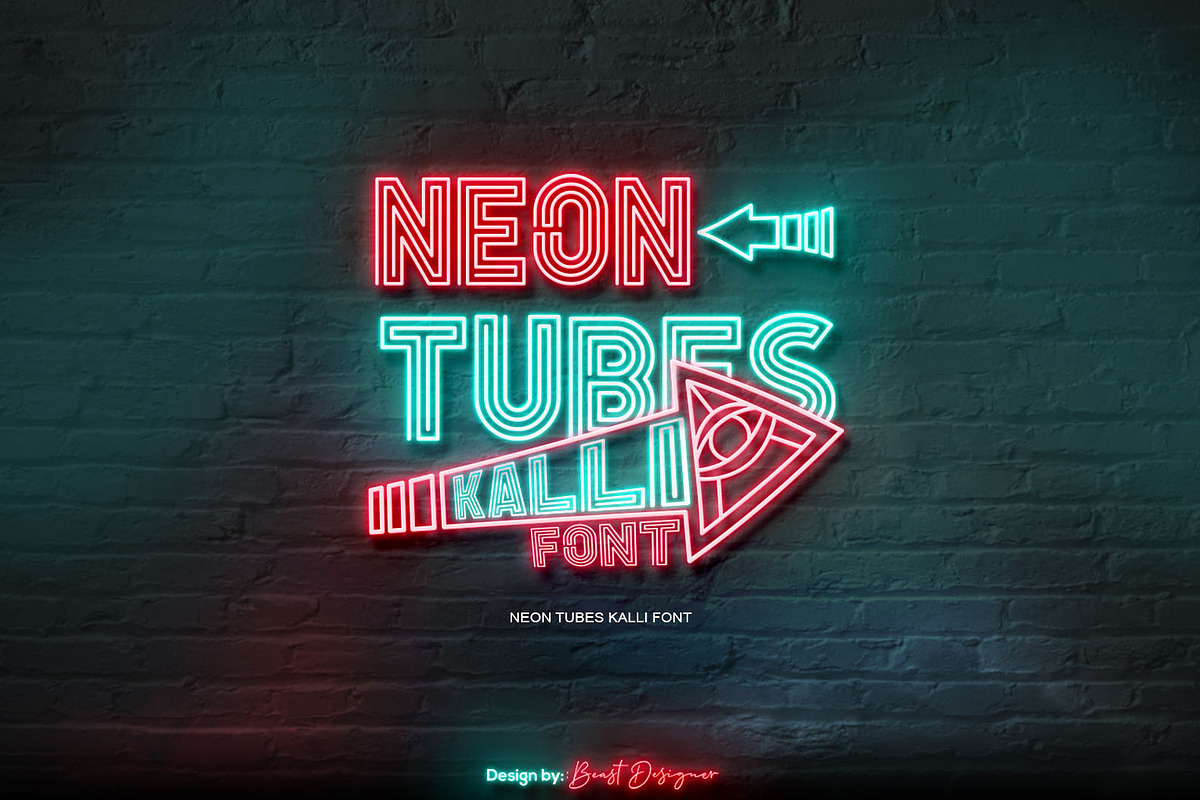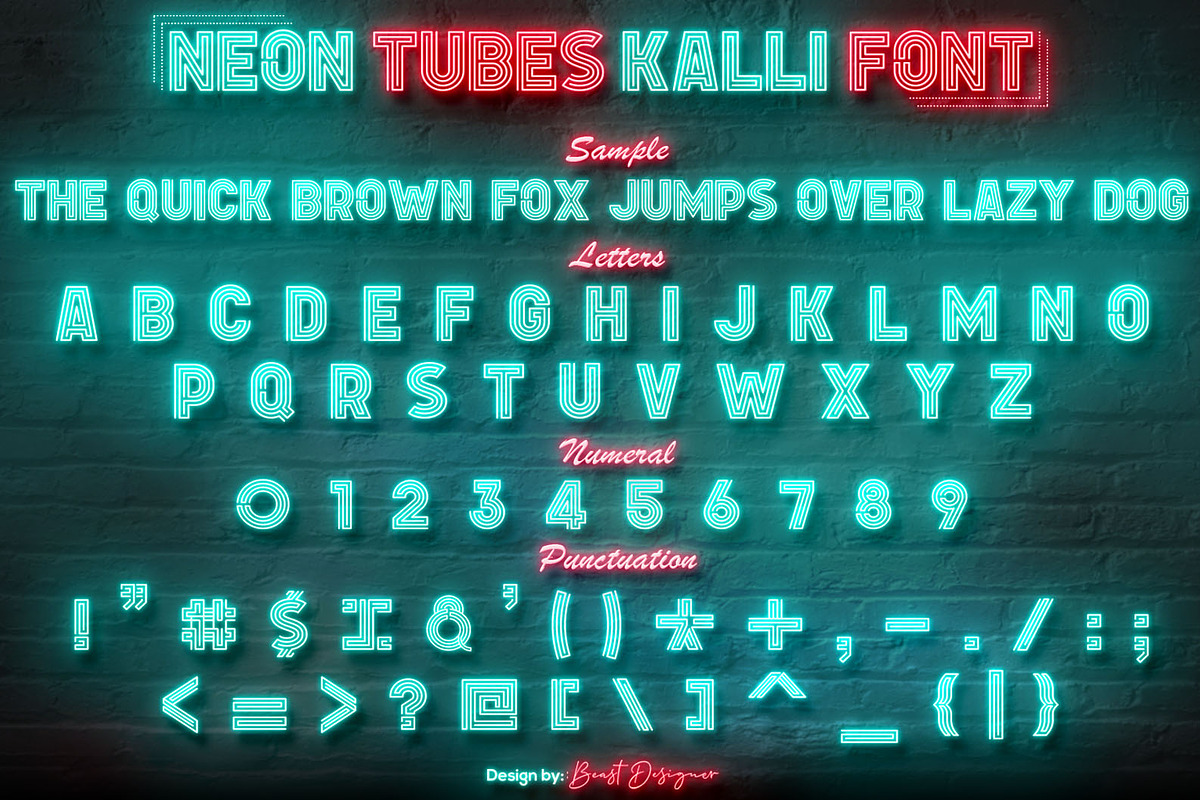
Neon Tubes Kalli
Neon Tubes Kalli is a captivating display font designed with a distinct retro aesthetic. Its whimsical style and playful multilinear construction make it ideal for creating eye-catching headlines, branding elements, and posters that evoke a sense of nostalgia and fun. The all-caps format adds to its bold presence, making it perfect for grabbing attention.